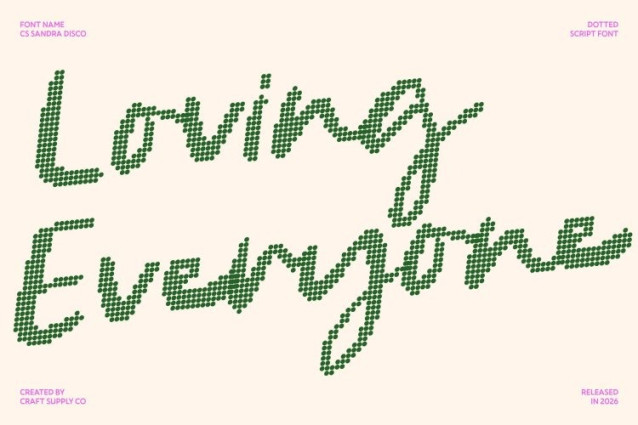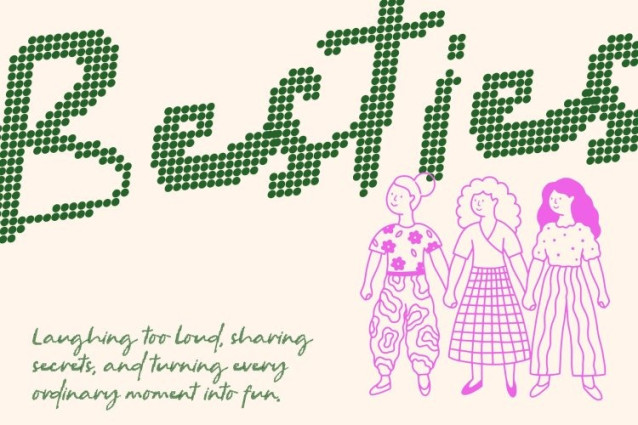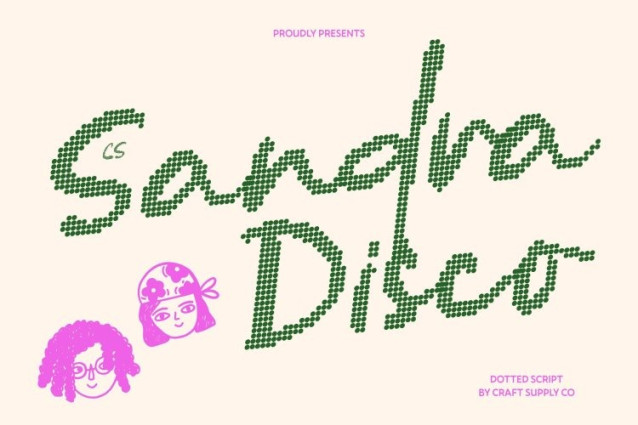
CS Sandra Disco Font
CS Sandra Disco Font – This font transforms the relaxed summer script into a lively dotted display font inspired by the sparkle and excitement of disco lights. Each flowing handwritten stroke is carefully constructed from small circular dots, creating a cheerful texture that reflects the vibrant energy of the dance floor. This dotted style keeps the font’s easygoing character while adding a festive and eye-catching glow.
Natural Handwritten Flow with Rhythmic Dots
The organic movement and casual rhythm of the original script remain beautifully preserved. Formed through playful dot patterns, each curve feels light, lively, and expressive. The dotted structure enhances the sense of motion, giving the letters a shimmering effect that feels joyful and dynamic like sunlight reflecting on a summer party.
Warm Personality with Cheerful Disco Charm
The rounded dots soften the handwritten strokes, amplifying the font’s friendly and approachable personality. This fusion of natural handwriting and disco-inspired sparkle creates a design that feels both relaxed and celebratory, perfect for bright and uplifting visuals.
Perfect for Fun and Lifestyle Designs
This font works beautifully for posters, invitations, summer branding, packaging, social media graphics, and lifestyle-themed projects. Its dotted script style adds a playful and radiant character, making designs feel cheerful, energetic, and memorable.